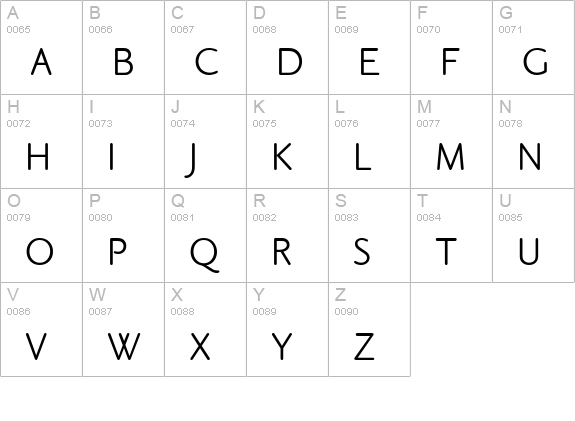
ClaudeSansPlain Font Details
ClaudeSansPlain is a modern and versatile font that effortlessly blends sophistication with simplicity. With its clean lines and minimalistic style, this font is perfect for a wide range of design projects, from branding to editorial design. The timeless elegance of ClaudeSansPlain makes it a go-to choice for designers looking to make a statement with their typography. Best of all, ClaudeSansPlain is completely free to download at FontsMarket.com. Whether you're a seasoned designer looking to refresh your font collection or a newcomer in search of a reliable and stylish typeface, ClaudeSansPlain is sure to impress. Download it today and elevate your designs with this beautiful and timeless font.